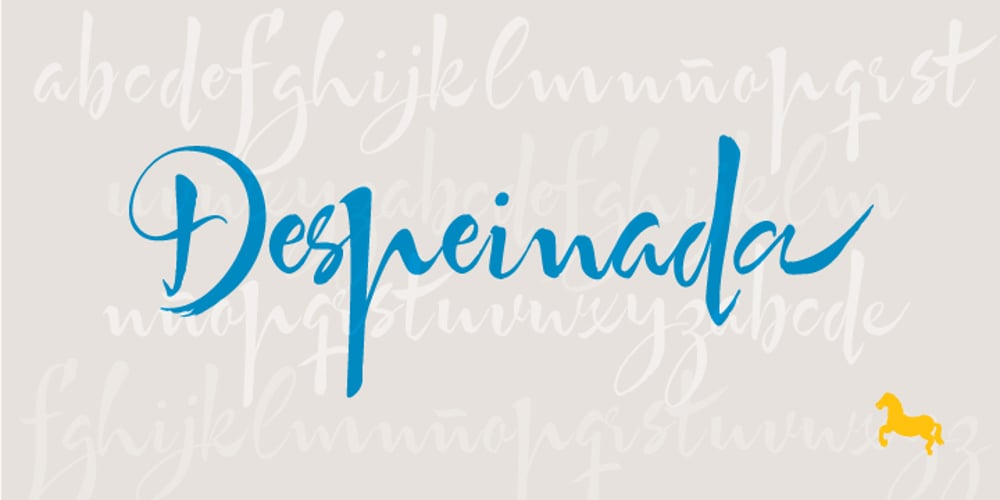
Despeinada Font Family was designed by Ricardo Rousselot and published by EdyType. Despeinada contains 1 styles and family package options. Despeinada, which means “uncombed” in Spanish, is a loose script, perfect for when you want to convey informality. It’ll look good in a long text, or when a few rough and spontaneous word are needed… Being a packaging designer, my faces are mostly oriented toward that sector, although they won’t look in any way out of place in the editorial world or in advertising, for example. This face was generated in the University of Barcelona Master of Typography, in 2010, where I dictated the “Practicum” It’s a very versatile design that can be used in small sizes or enlarged as needed. It won’t deceive you! I think that this particular face is halfway between Mistral and Zapfino: rough but clean at the same time. None of its glyphs follow any order, nor do their weights… In short, if you start writing with Despeinada you won’t want to stop.